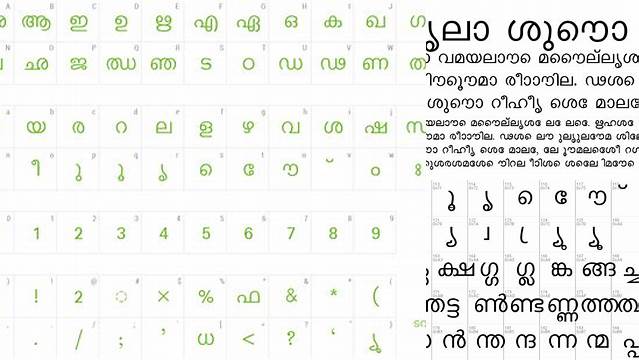
Hey guys! Ever stumbled upon the elegant Malayalam font, ML TT Karthika, and thought, "Wow, I need that!"? Well, you're in the right spot. This article is your ultimate guide to everything about the ML TT Karthika font: where to get it, how to use it, and a few extra tidbits to make your font journey smooth sailing. Let's dive in!
What is ML TT Karthika Font?
Firstly, let's get acquainted with ML TT Karthika. It's a popular Malayalam font, known for its readability and aesthetic appeal. Designed specifically for the Malayalam script, itβs a go-to choice for anything from personal projects to professional designs. Whether you're crafting invitations, designing websites, or just want to spice up your social media posts, ML TT Karthika has you covered. The font's design focuses on clarity and a touch of elegance, making it a versatile option for various applications. Imagine the grace of Malayalam letters flowing seamlessly in your projects β that's the charm of ML TT Karthika. The font's popularity stems from its ability to blend traditional aesthetics with modern design needs. It strikes a perfect balance, ensuring that your content not only looks good but also respects and celebrates the beauty of the Malayalam language. This is super important, especially when you're aiming to connect with an audience that appreciates and values cultural authenticity. Its widespread use is a testament to its adaptability and aesthetic qualities. Think about it: you could be designing a poster for a cultural event, creating digital content for educational purposes, or even adding a touch of Malayalam flair to your personal blog β the possibilities are endless.
With its clean lines and easy-to-read style, ML TT Karthika ensures that the message is clear and the design is visually appealing. This is especially crucial when dealing with text-heavy documents or applications where readability is paramount. The font's design has been carefully considered to maintain the unique characteristics of the Malayalam script, making it an authentic and culturally relevant choice. Moreover, the availability of ML TT Karthika across various platforms and devices makes it incredibly user-friendly. You can easily incorporate it into your workflow whether you're using a Windows PC, a Mac, or even a mobile device. Its widespread compatibility means you won't encounter compatibility issues, allowing you to focus on your creative process without worrying about technical glitches. This adaptability is a key reason for its continued popularity among designers, writers, and anyone who wants to incorporate Malayalam text into their work. The creators of ML TT Karthika have ensured it's not just a font; it's a tool that facilitates creativity and communication, making it easy to share your ideas in a visually compelling way. So, whether you're a seasoned designer or just starting out, ML TT Karthika is an excellent addition to your font library.
Benefits of using ML TT Karthika
Using ML TT Karthika offers a bunch of awesome benefits. Firstly, and perhaps most importantly, it's designed specifically for the Malayalam script. This means the letters are perfectly rendered, ensuring that the text looks accurate and professional. This is a significant advantage over using fonts that are not specifically tailored for the Malayalam language, which could lead to rendering errors or visual inconsistencies. Secondly, the font is incredibly readable. The designers have put a lot of thought into making sure the letters are clear and easy on the eyes, so your audience can effortlessly read your content. This is critical for maintaining audience engagement and ensuring that your message is effectively communicated. Readability is something you can't compromise on if you're serious about effective communication. Think about it: if the font is difficult to read, people will likely lose interest, no matter how great your content is. Thirdly, its elegance adds a touch of sophistication to your designs. The font has a certain grace and charm that can instantly elevate the visual appeal of your projects. This is perfect whether you're creating a website, designing a poster, or composing a personal document. The font's aesthetic qualities make it a great choice for a wide range of applications where visual appeal is key. Lastly, ML TT Karthika is versatile. It works well across different design projects, from formal documents to creative endeavors. This adaptability makes it a valuable asset in any designer's or writer's toolkit. The font is compatible with various software and operating systems, allowing seamless integration into your workflow. Its adaptability also means that you can use it in various contexts, adding consistency and visual harmony to your overall brand or personal style.